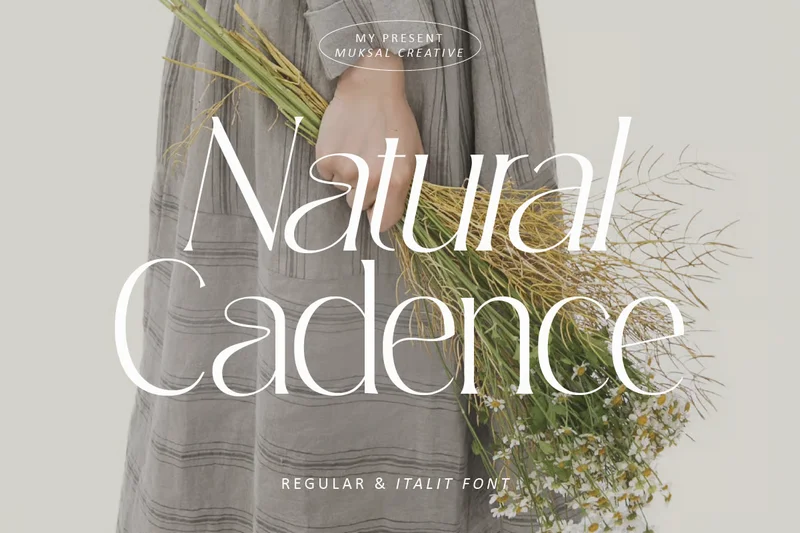
Natural Cadense – Modern Serif
Natural Cadence is a refined modern serif font with elegant alternates, special glyphs, and tasteful ornamentation. It delivers versatility in both large display and smaller typesetting, blending classic elegance with contemporary sharpness. It’s ideal for editorial projects, logos, magazine headers, product packaging, and stylish typographic overlays.